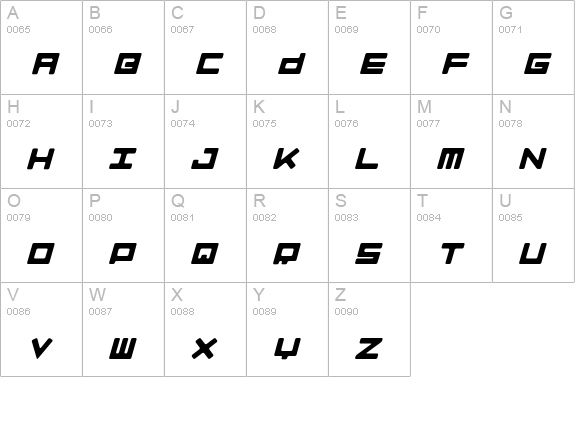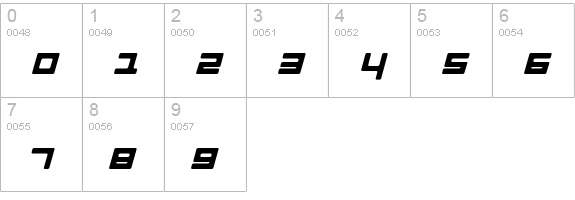
LuggageRoundHeavyObl is a bold and eye-catching font that exudes strength and confidence. Its rounded edges give it a modern and friendly feel, while its heavy weight commands attention. This font is perfect for headlines, logos, and branding projects that require a strong presence. The best part? LuggageRoundHeavyObl is completely free to download at FontsMarket.com. Take advantage of this versatile font to make a bold statement in your designs without breaking the bank. Download it today and elevate your projects with this powerful typeface.